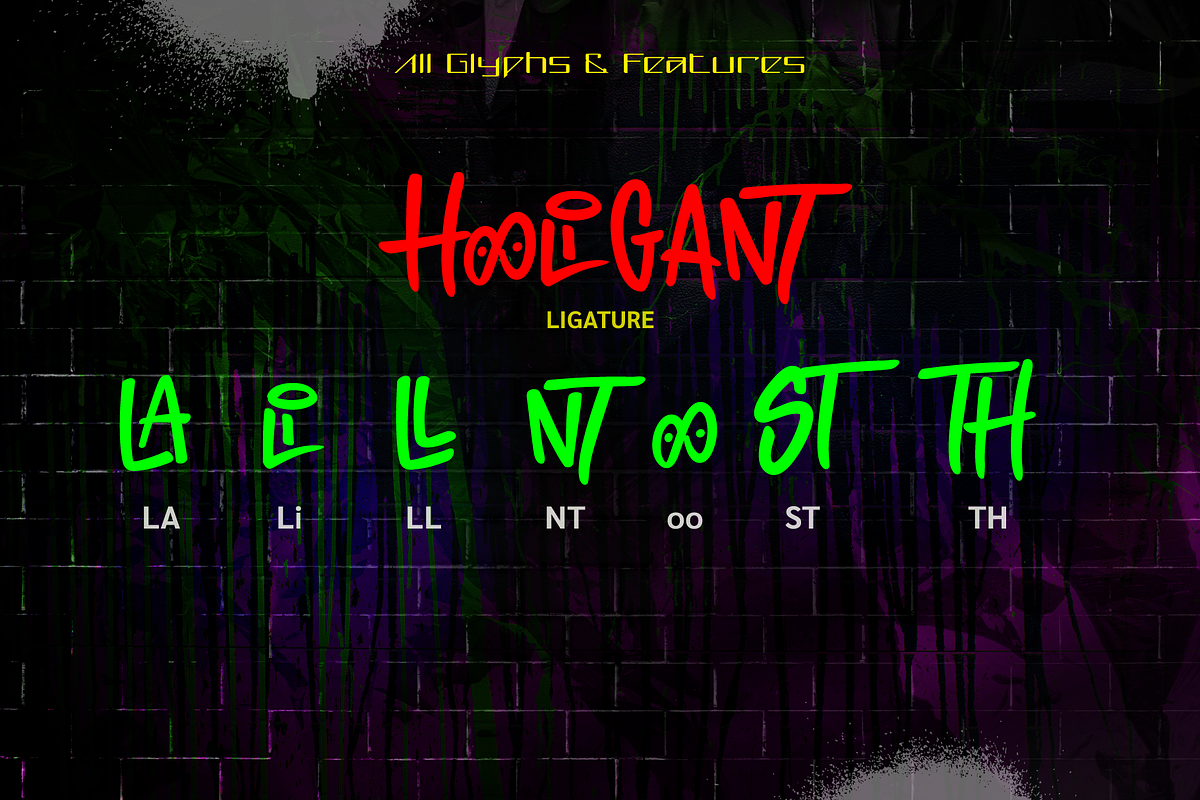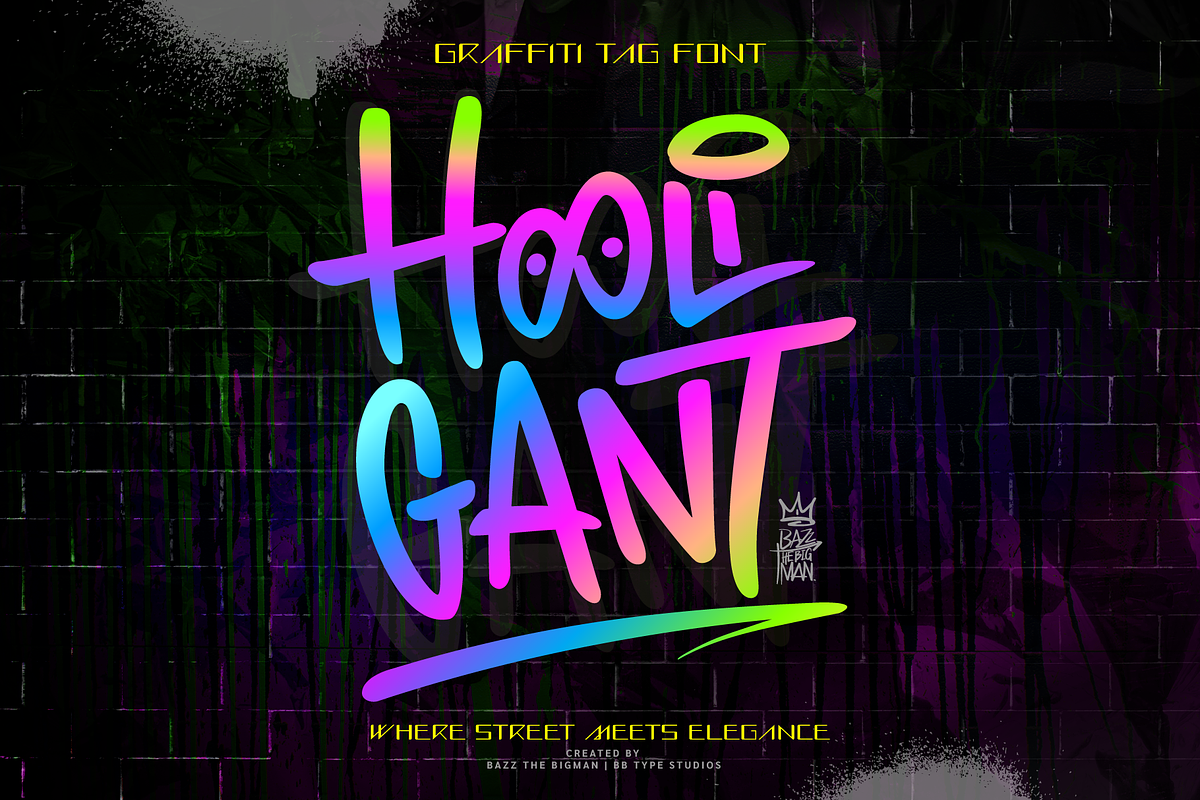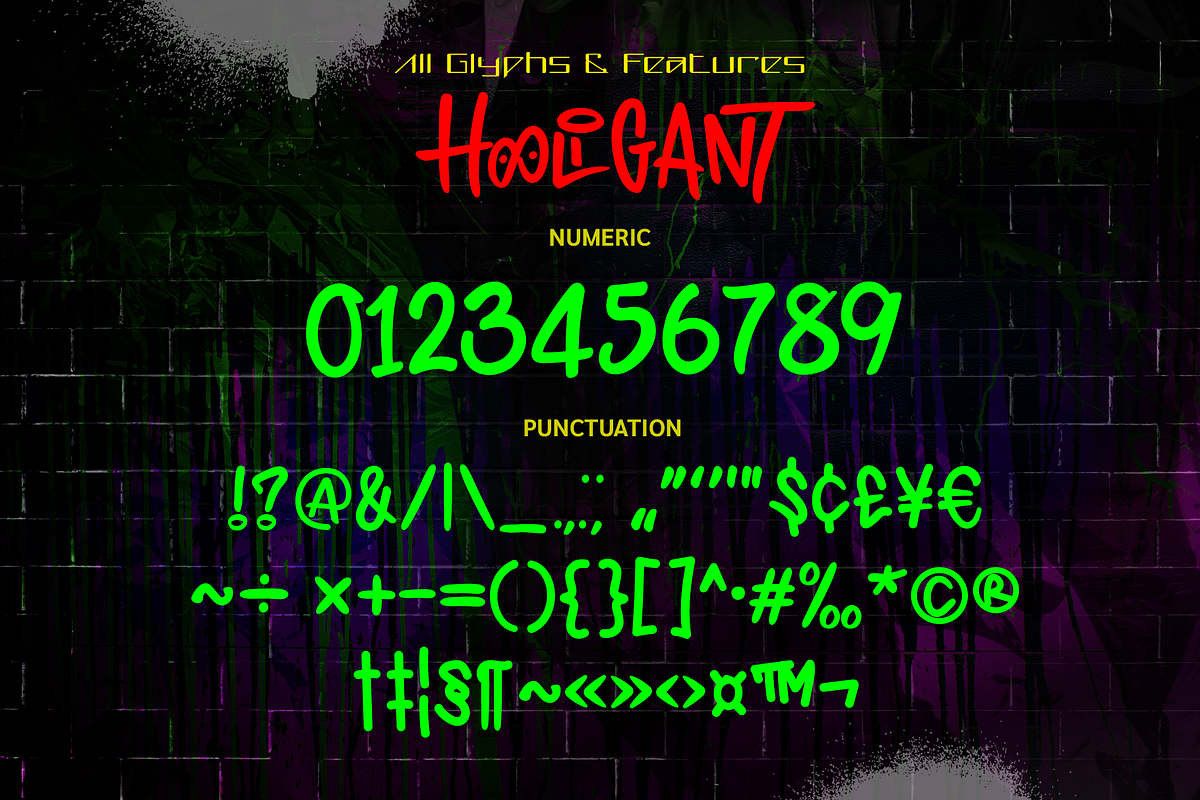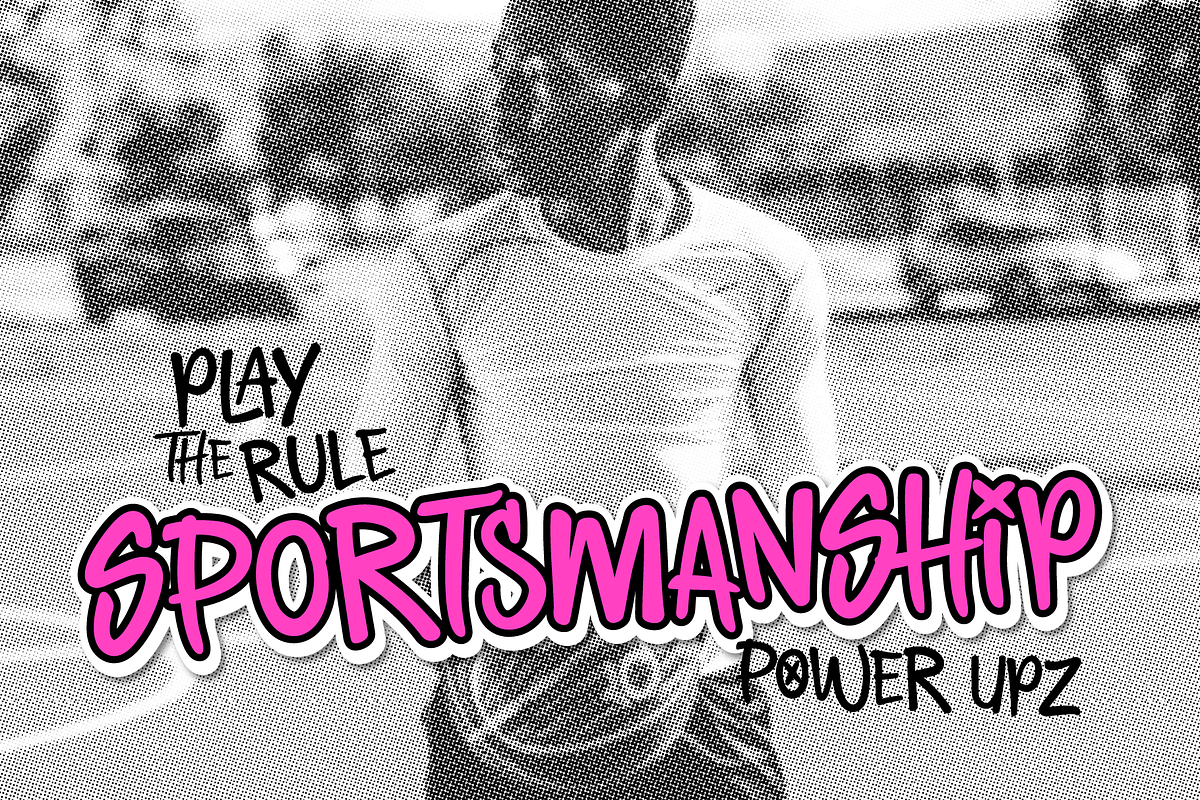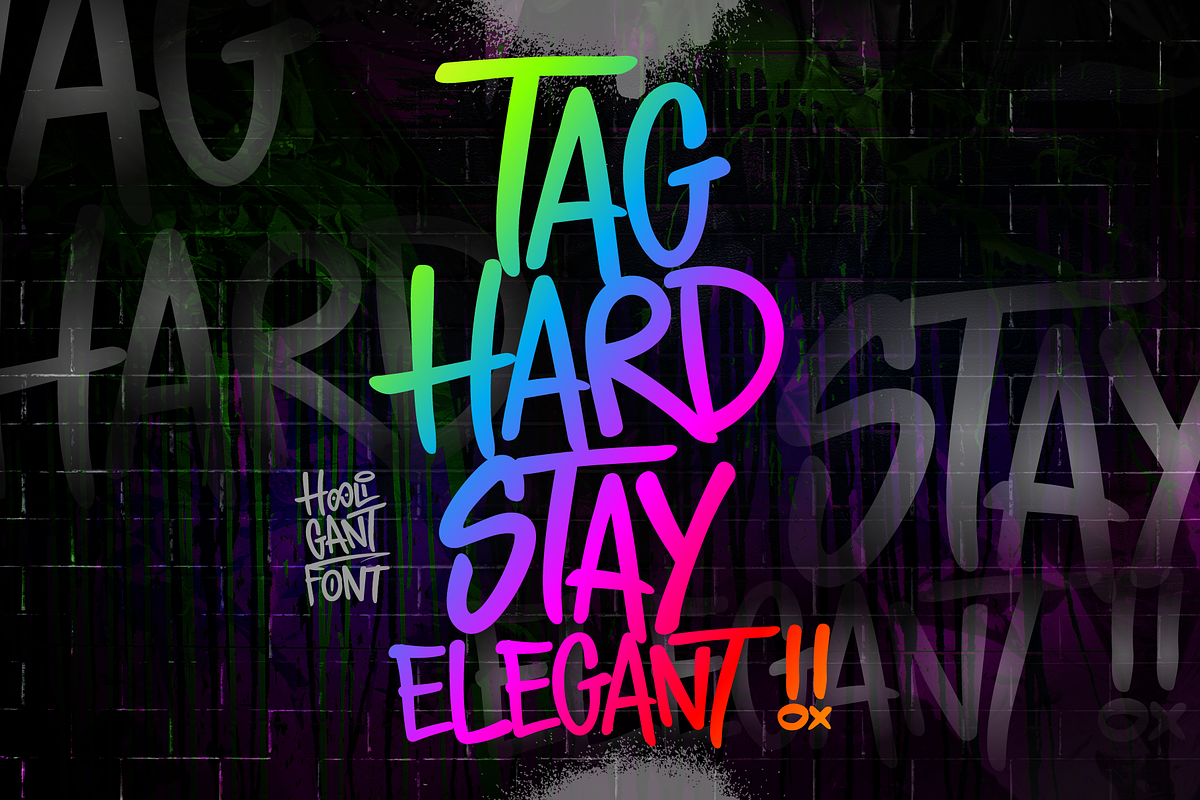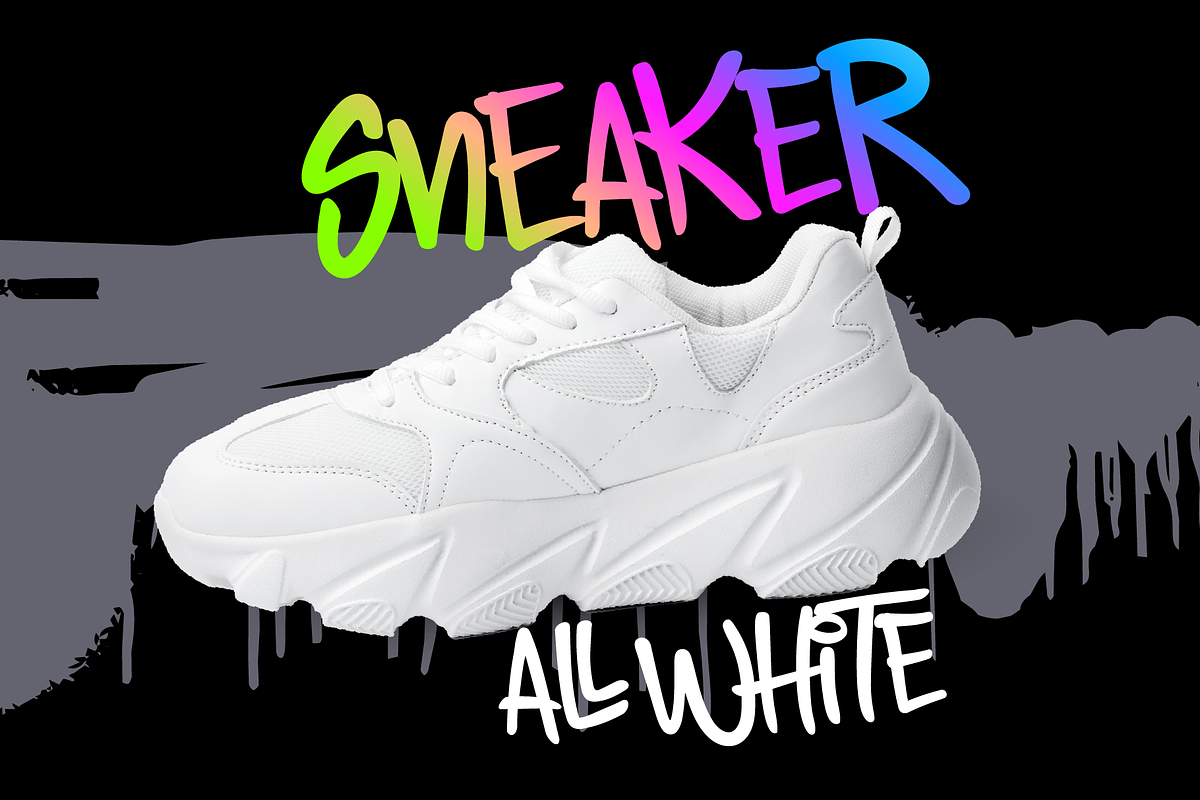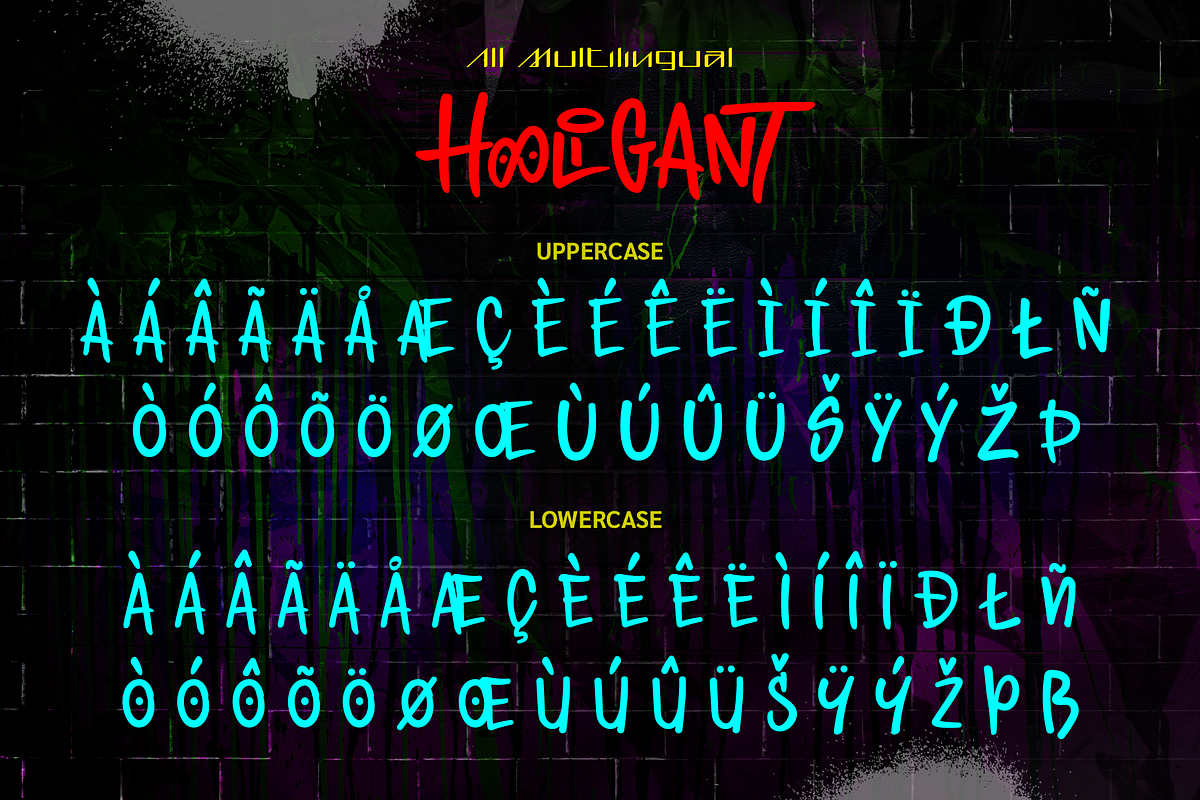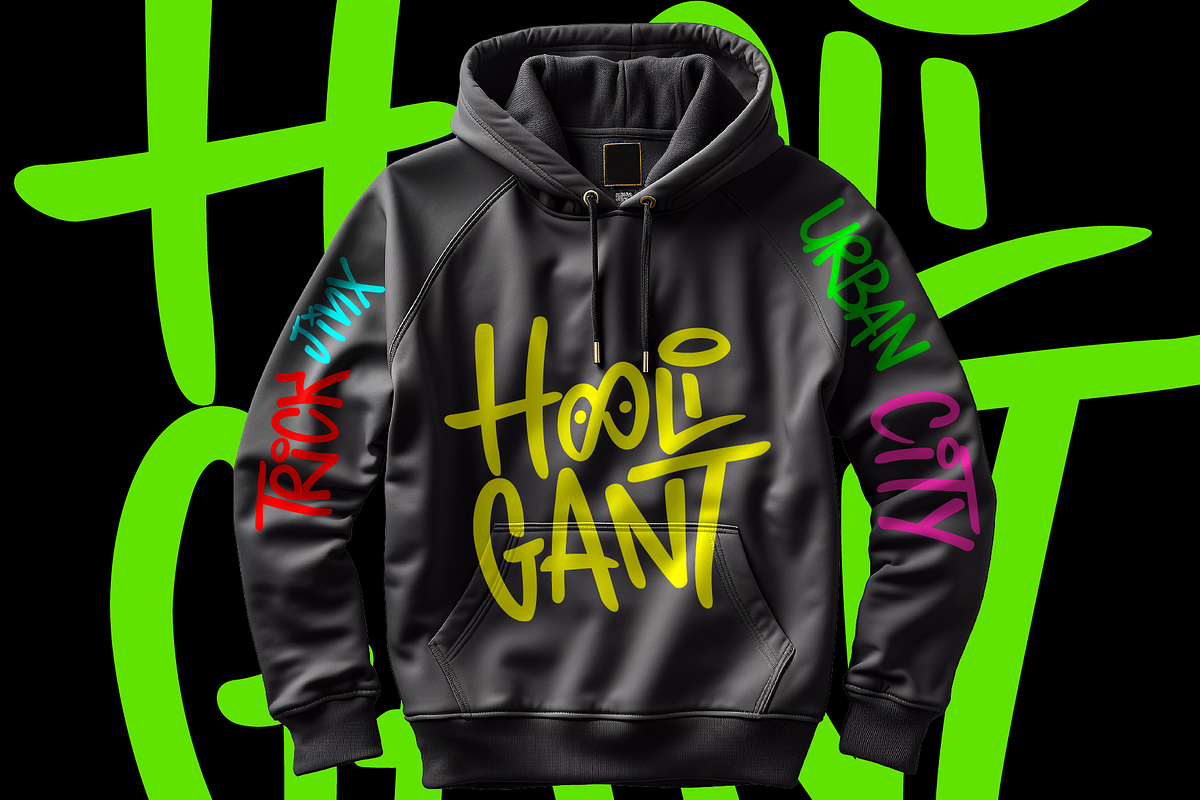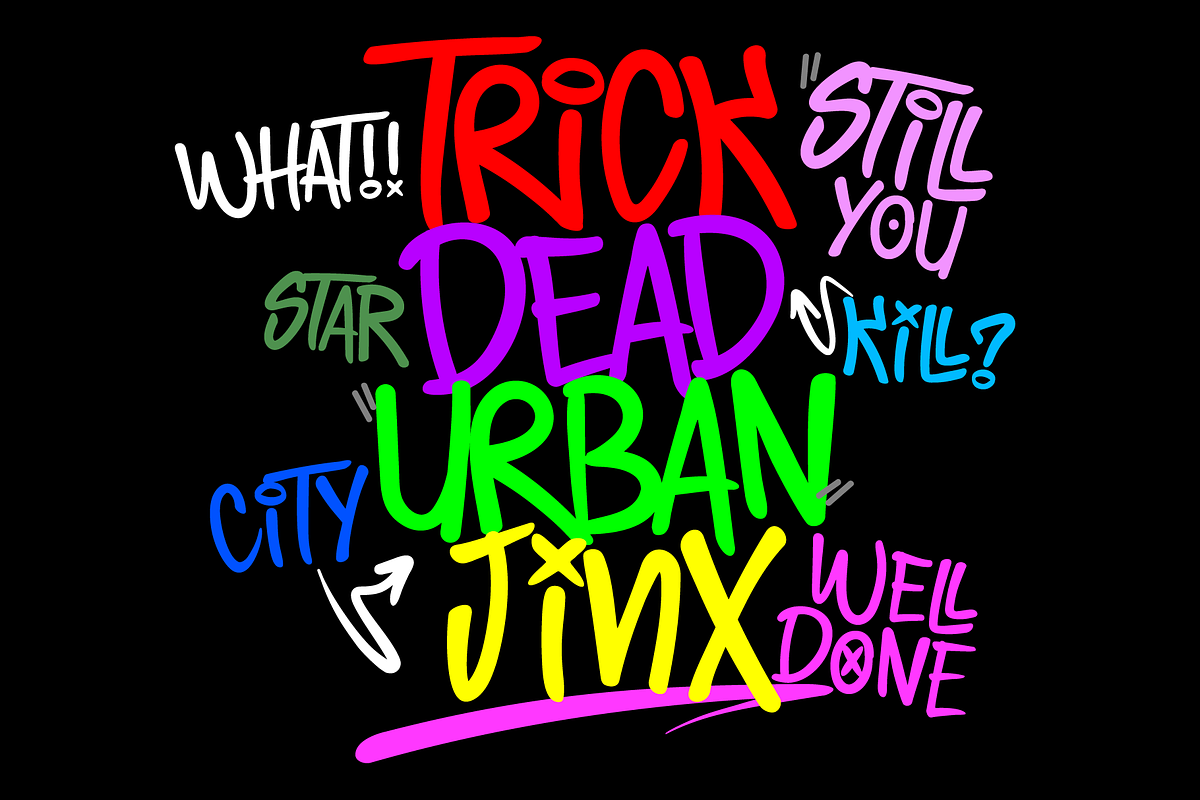
Hooligant – Graffiti Tag Font
Hooligant is a bold graffiti tag font that blends raw street energy with refined elegance.
Designed with expressive monoline strokes, signature-style flow, and unique ligatures like the iconic infinity “oo,” Hooligant delivers a rebellious yet polished personality perfect for standout designs.
Built for creators who want attitude, style, and unforgettable visual impact.
Streetwear branding
Fashion editorials
Album covers
Posters
Sports visuals
Packaging
Logo design